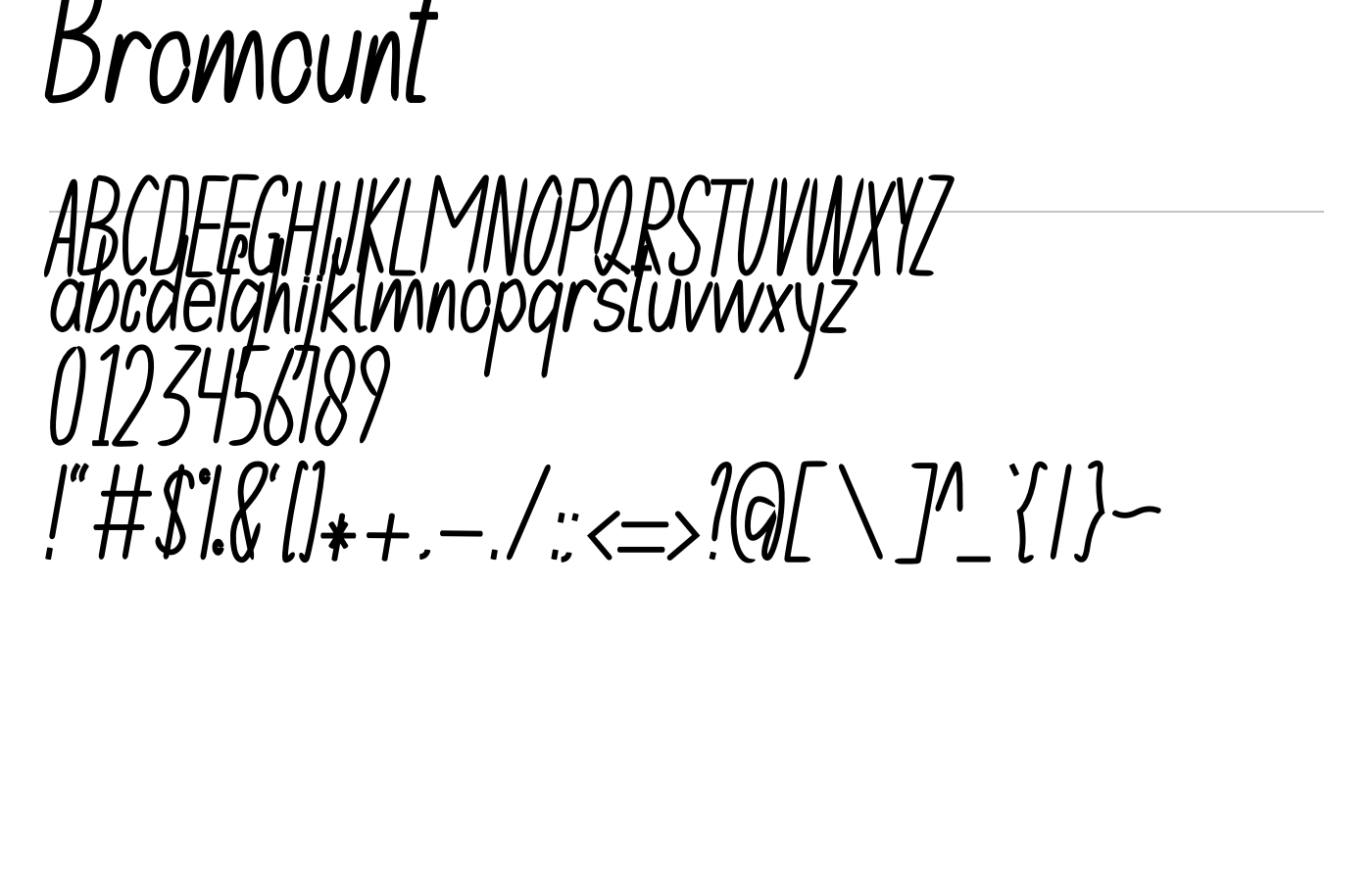
Bromount is a slender, handwritten-style sans serif font with a tall x-height and narrow letterforms that create a graceful, casual impression. Its slightly irregular strokes and smooth curves lend a friendly, approachable feel, making it ideal for creative projects, informal branding, and modern editorial use. This font works well when you want to communicate warmth and personality with a clean, contemporary touch.
Bromount Font